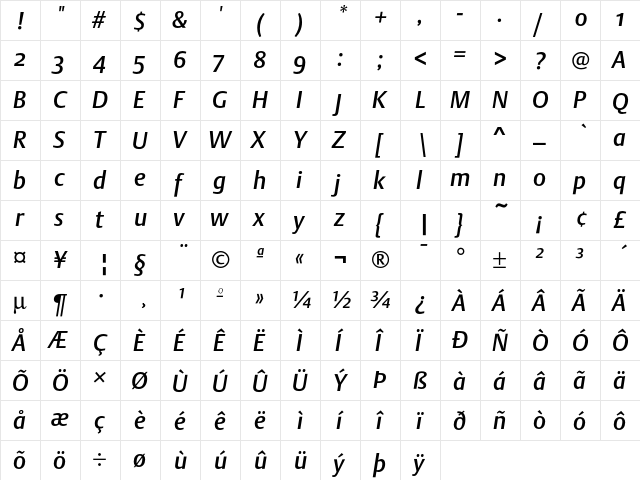
DTL Argo ST Medium Italic Font Preview
DTL Argo ST Medium Italic
Design Context for DTL Argo Typeface
DTL Argo is a composed and adaptable typeface that performs quietly and consistently across a wide range of design contexts. The dynamic lean of this cut emphasises speed and emphasis in any layout.
Pro Tip: Try DTL Argo for annotation and caption copy alongside an upright companion — the contrast in angle creates a dynamic but ordered typographic system.